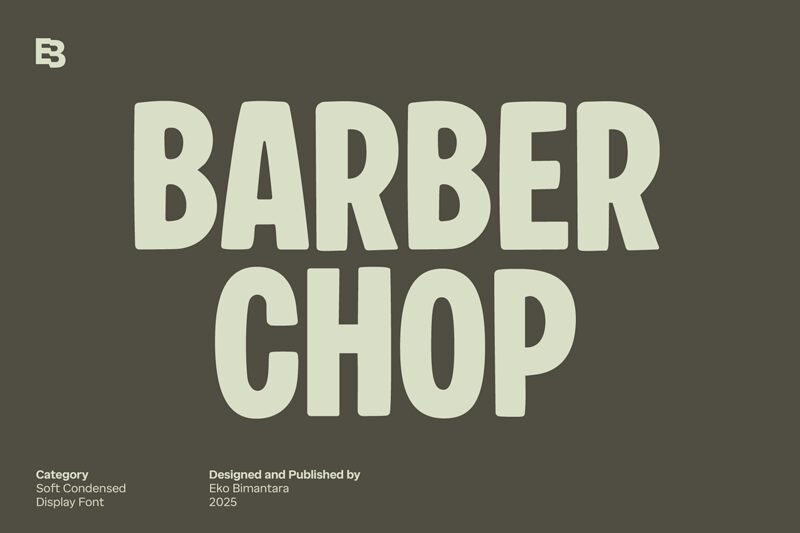
Barber Chop Regular
Barber Chop font by Eko Bimantara is a display font with a comic style and condensed width. Its playful yet robust look creates an impactful presence and provides a retro influence to any design. The font has strong characters with classic elements occupying a balance which gives the text both fun and aesthetic vibe.
Use this free display font in signs, badges, logos, advertisements, quotes, posters, apparel designs, invitations cards,. Opting for it as the title font of books or magazines is also suitable.